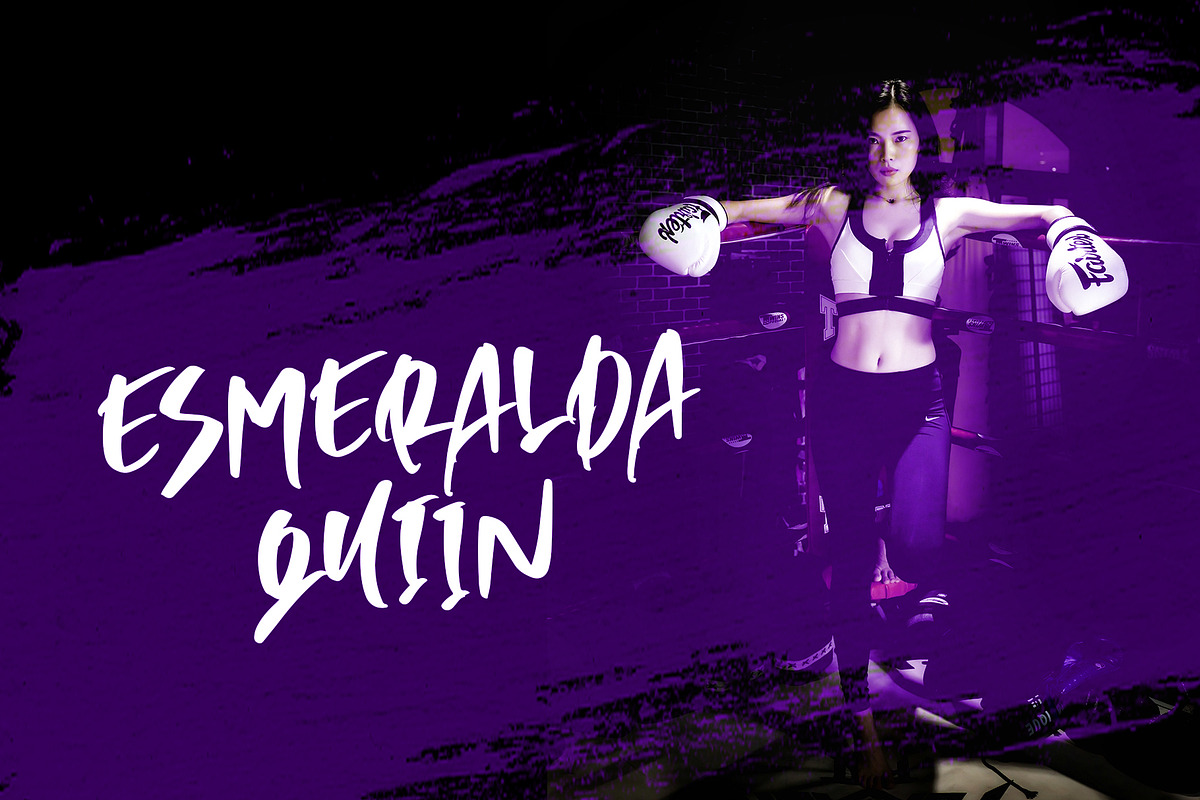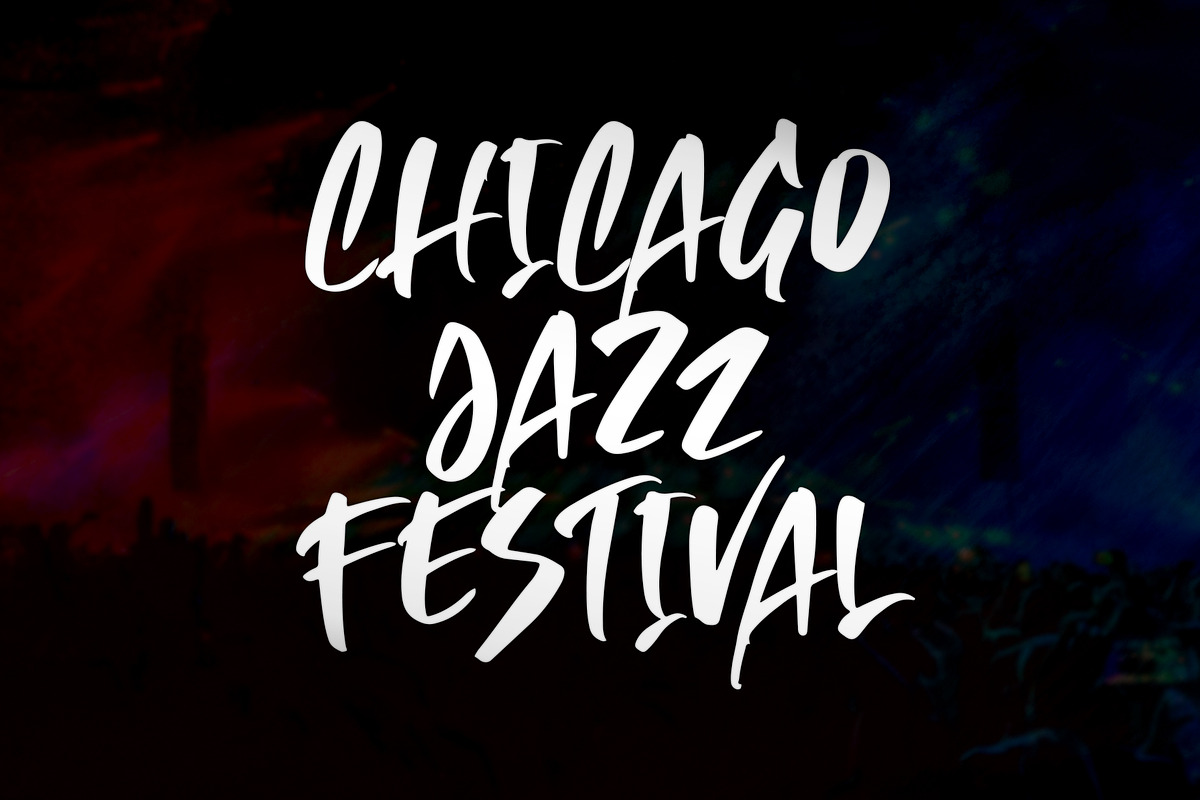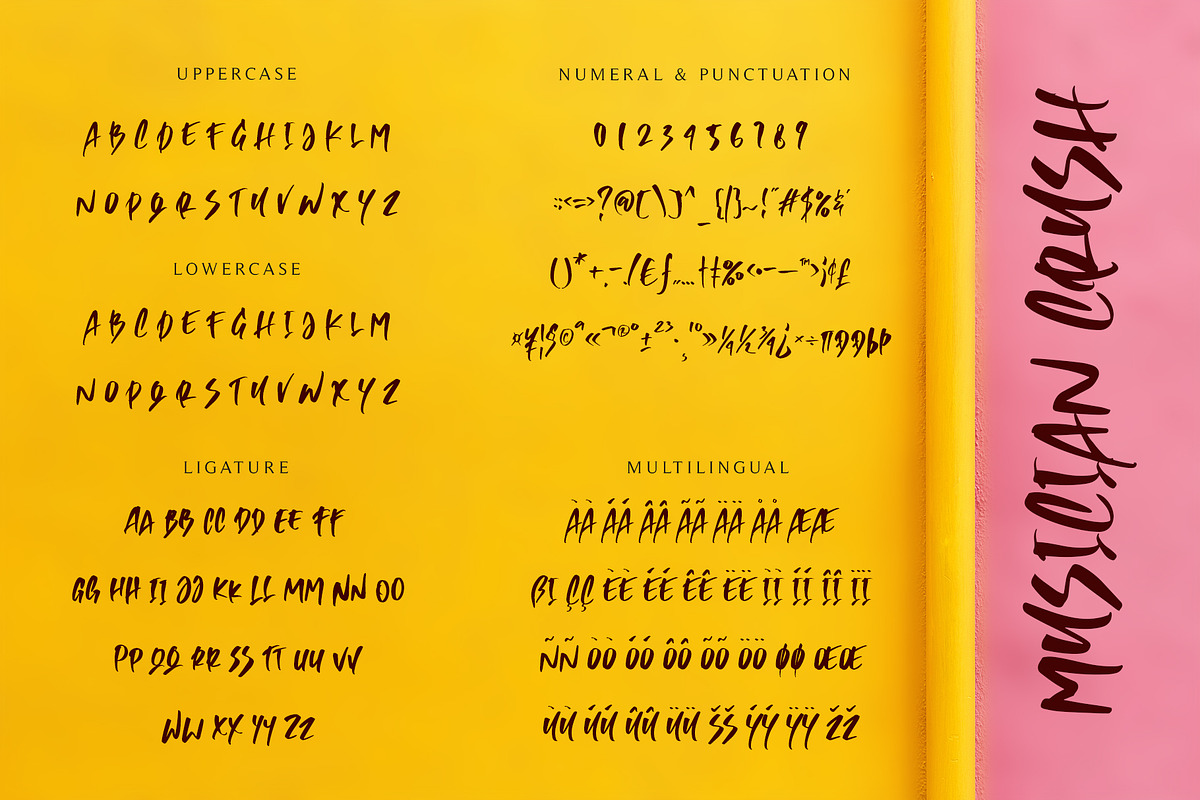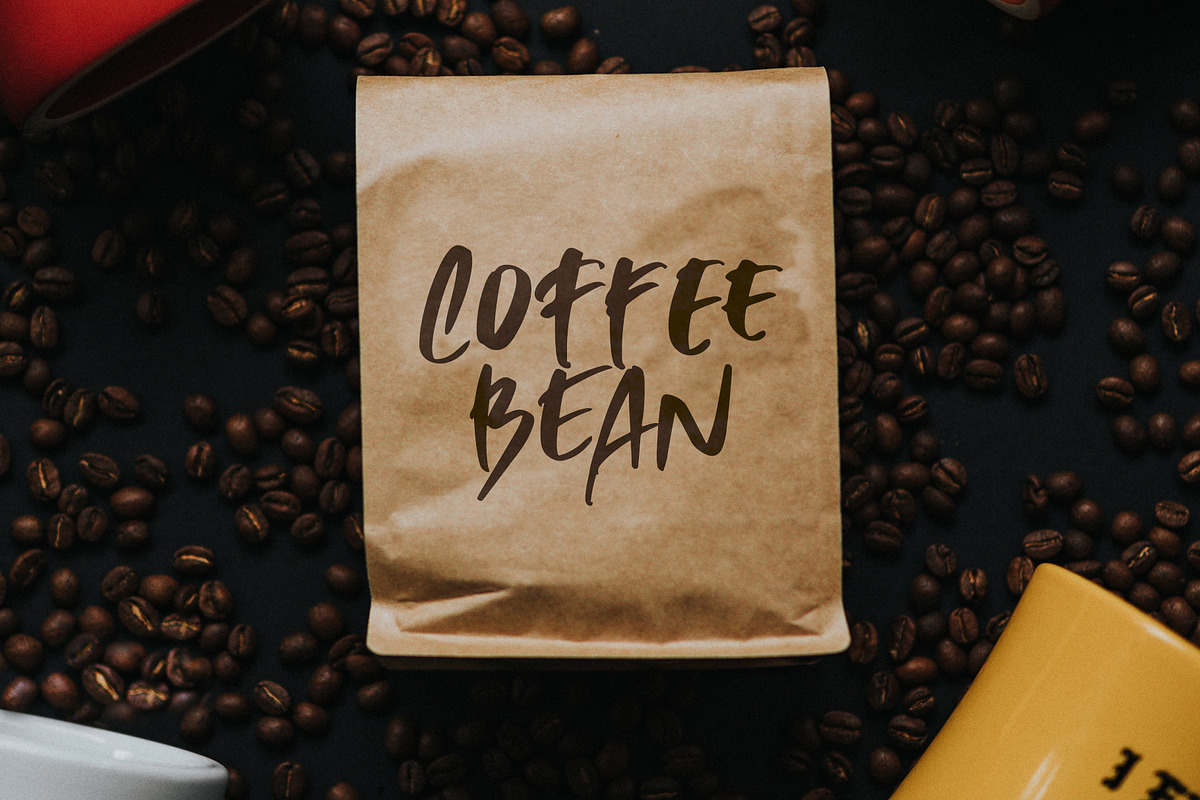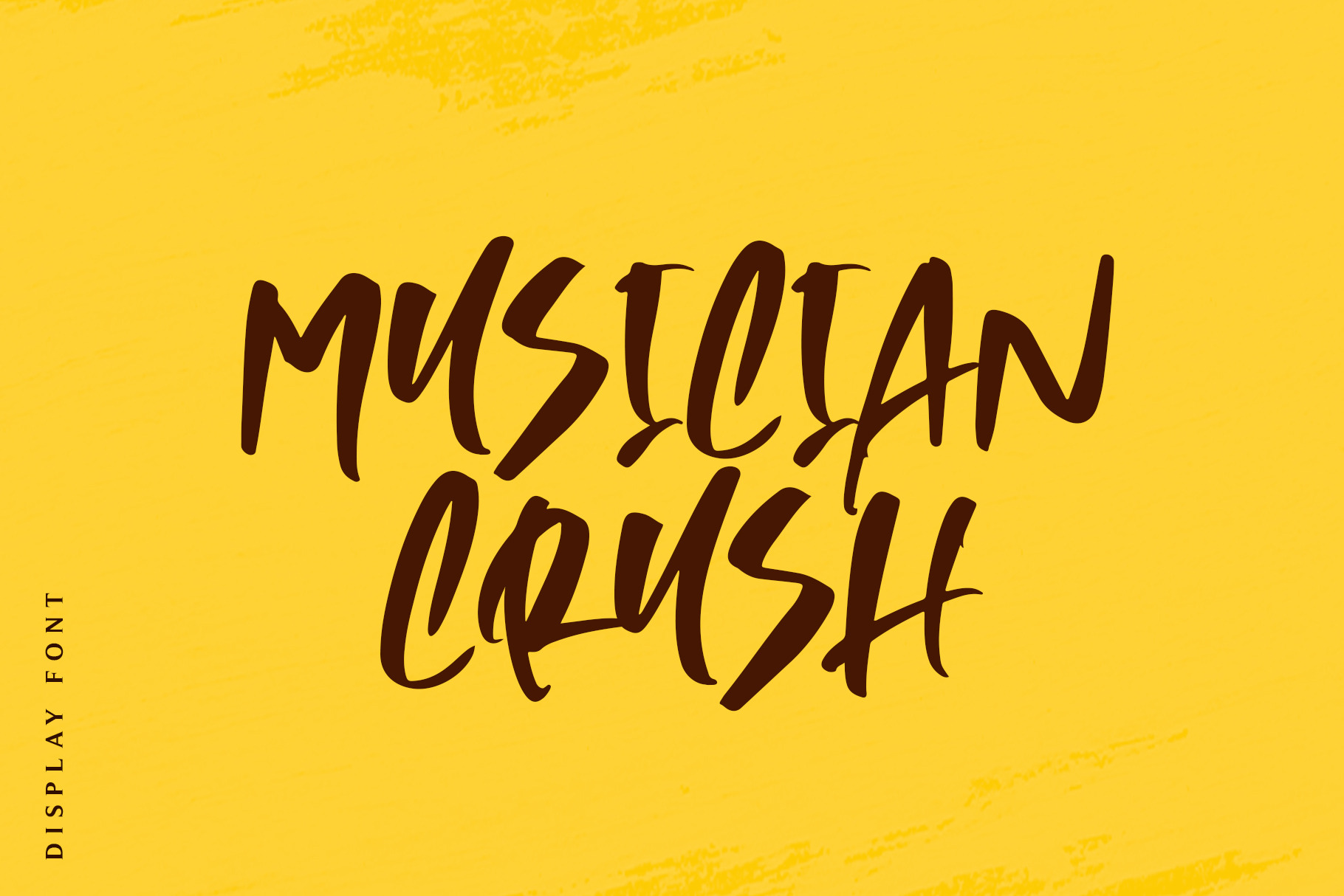
Musician Crush - Vibrant Font
Musician Crush is a vibrant and attractive display font with urban style. This All Caps typeface is strong to stand out over your design project. You'll find natural handwriting feel, because Musician Crush packed with ligatures, also multilingual support and PUA Encoded.